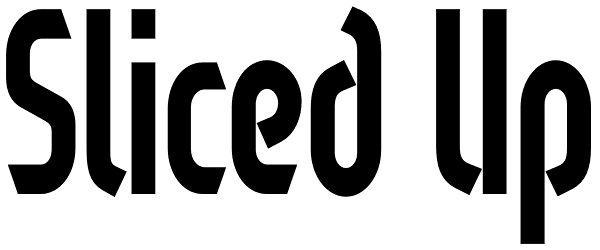
Sliced
The name of this robust typeface is adopted quite literally from the slice taken out of certain characters. The same sliced angle is also applied to many of the terminals, creating a clean-cut styling throughout the family. Tilted versions emphasise...